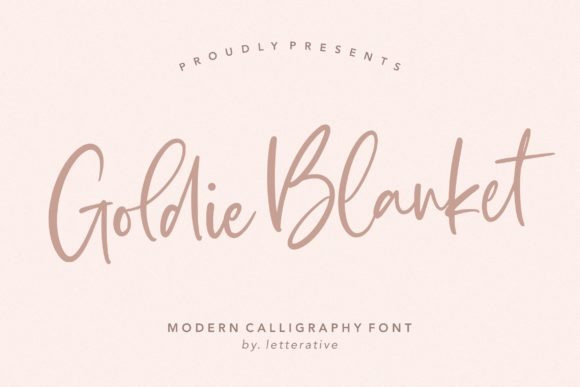
Unleashing Your Creativity with the Goldie Blanket Font
Have you ever found yourself staring at a blank canvas, waiting for the perfect spark to ignite your creativity? For many designers, this moment is a familiar and frustrating experience. But what if you had the right tools to bring your vision to life? That’s where the Goldie Blanket Font comes in – a delicate and elegant handwritten font that’s sure to capture your heart.
With its distinct and well-rounded letters, the Goldie Blanket Font is a masterpiece that’s perfect for creating spectacular designs. Whether you’re a seasoned designer or just starting out, this versatile font is a valuable addition to your toolkit. Its PUA encoding makes it easy to access all of the glyphs and swashes, giving you the freedom to experiment and push the boundaries of your creativity.
Goldie Blanket Font Key Features
- Font Family: Goldie Blanket is a unique, handwritten font that features elegant and delicate lines.
- Character Count: Includes over 200 characters, including uppercase and lowercase letters, numbers, and punctuation marks.
- Unique Characteristics: Features a mix of cursive and script elements, with subtle variations in line width and letter spacing, giving it a distinctive and elegant feel.
Goldie Blanket Font Review
Overall, I was impressed by the Goldie Blanket Font for its eye-catching and whimsical nature. The font is perfect for adding a touch of playfulness to your designs, especially for projects targeting children or young adults. ✨
The Goldie Blanket Font features a range of unique characters that will add an extra layer of personality to your designs. The font’s scalability is also noteworthy, allowing it to look great in various sizes and resolutions. ✨
- ⚠️ The font may not be suitable for formal or professional projects due to its playful nature.
- ⚠️ Some users may find the font too quirky or unconventional, which may not appeal to everyone.
- ⚠️ The font may require some experimentation to achieve the desired effect, as its unique characters can be a bit tricky to work with.
In conclusion, the Goldie Blanket Font is a great choice for designers looking to add a touch of whimsy to their projects. While it may have some limitations, the font’s unique characters and scalability make it a valuable addition to any designer’s toolkit.
Use the Goldie Blanket Font in designs that require a playful, whimsical touch, such as:
Children’s books and educational materials
Marketing materials for creative businesses
Personalized gifts and party invitations
Alternatives to Goldie Blanket Font
Bodoni is a classic serif font that is reminiscent of the 18th-century Italian style. It’s ideal for use in formal invitations, luxury branding, and traditional publications. Compared to Goldie Blanket Font, Bodoni has a more formal and elegant feel, making it a great choice for high-end designs.
Cream Soda is a vintage-inspired script font that adds a touch of whimsy and romance to designs. It’s perfect for use in wedding invitations, greeting cards, and other personal projects. Compared to Goldie Blanket Font, Cream Soda has a more playful and cursive feel, making it a great choice for projects that require a softer, more feminine touch.
Playfair Display is a luxurious serif font that is perfect for use in high-end branding, luxury goods, and fine art. It’s ideal for use in large headings and titles, where its elegant and refined feel can be showcased. Compared to Goldie Blanket Font, Playfair Display has a more formal and sophisticated feel, making it a great choice for projects that require a sense of luxury and refinement.